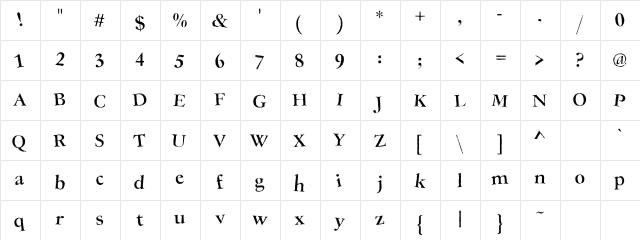
CK Scratchy Regular
Design Context for CK Scratchy Typeface
CK Scratchy is a composed and adaptable typeface that performs quietly and consistently across a wide range of design contexts.